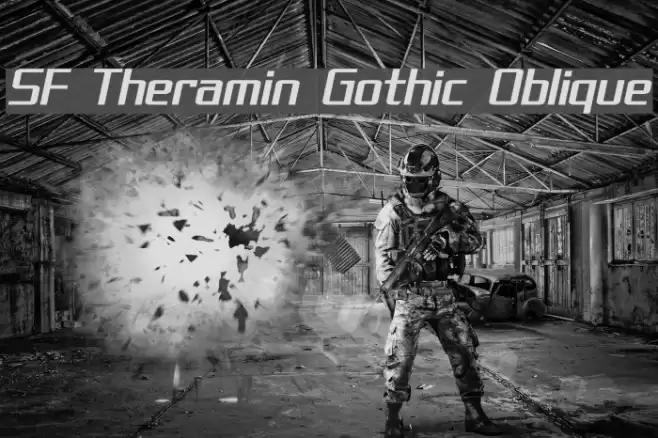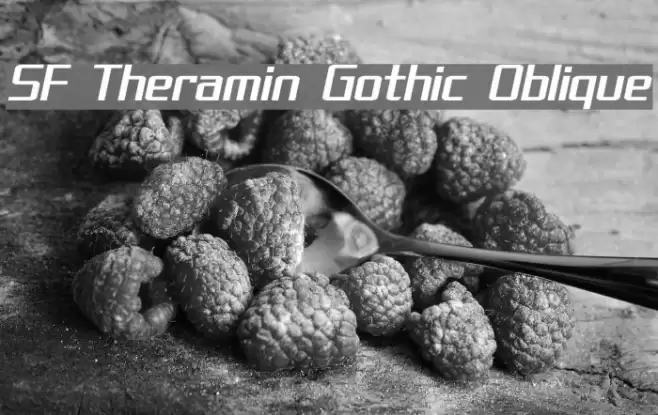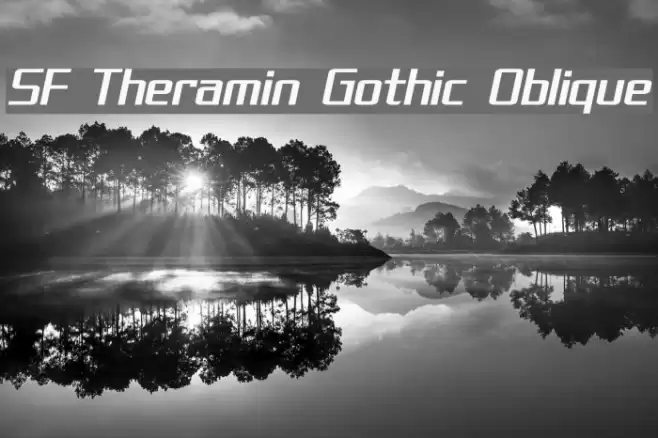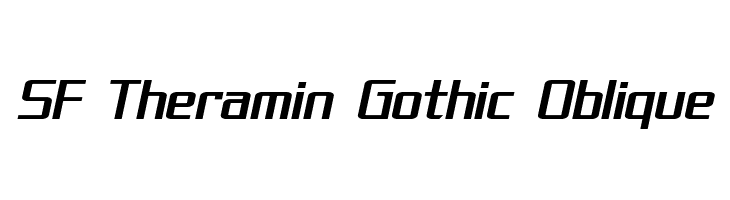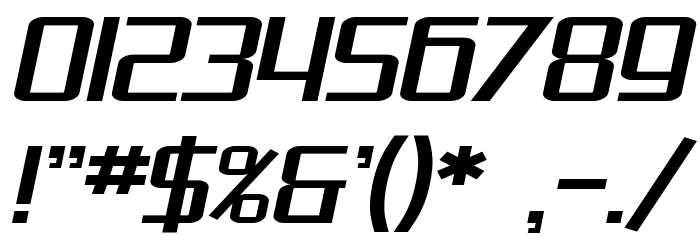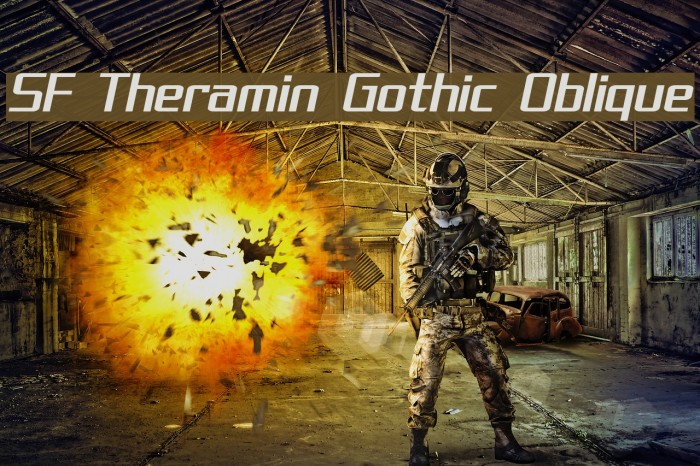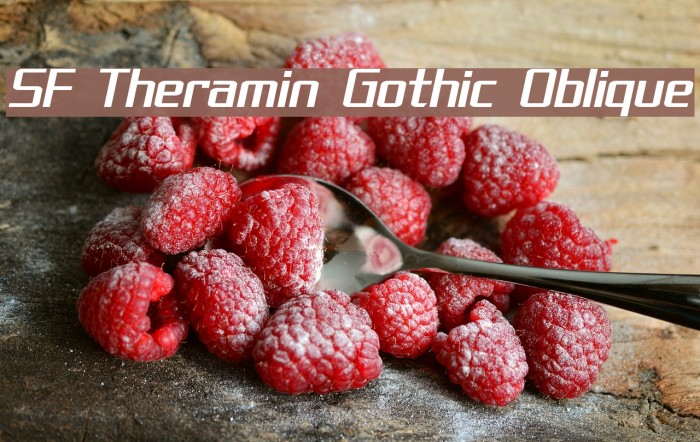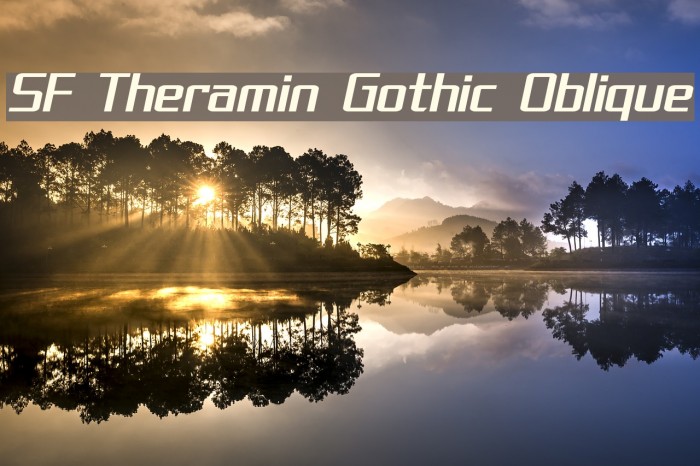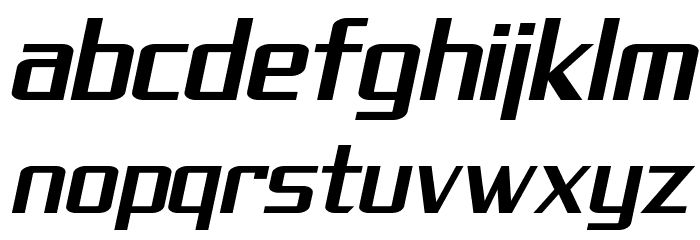
SF Theramin Gothic Oblique Font
SF Theramin Gothic Oblique Description
This font features a sleek, modern design with a distinct oblique slant, giving it a dynamic and forward-moving appearance. The characters are crafted with precision, showcasing sharp angles and clean lines that contribute to its futuristic aesthetic. The uppercase and lowercase letters maintain a consistent style, with a slightly condensed form that enhances readability while preserving a unique character. The numerals and special characters are designed to complement the alphabet, maintaining the overall geometric and angular theme. This font is ideal for projects that require a contemporary and edgy look, such as technology branding, modern advertising, or innovative product packaging.
A sleek, modern oblique font with sharp angles and a futuristic aesthetic from Formal fonts.
- Proposed Projects: Ideal for technology branding, modern advertising, and innovative product packaging.